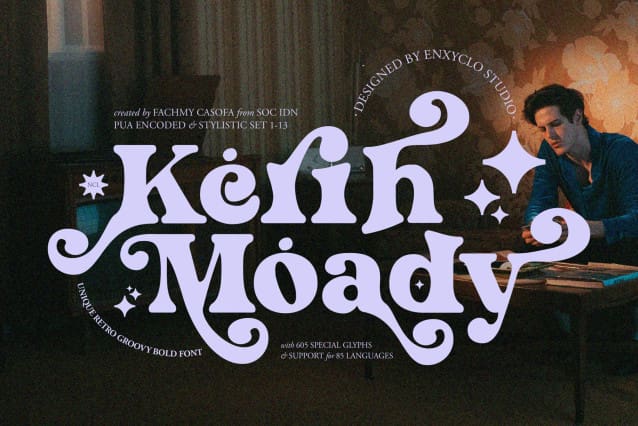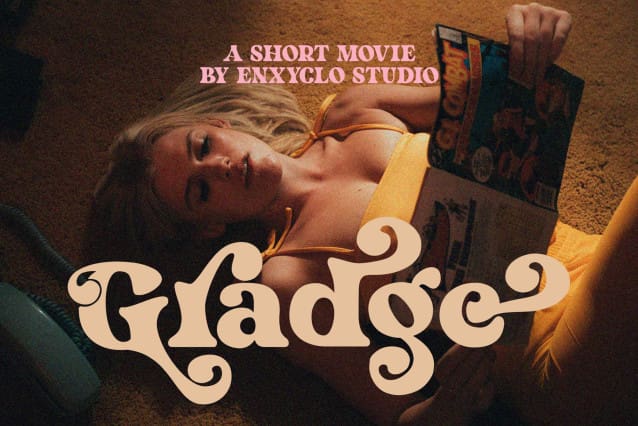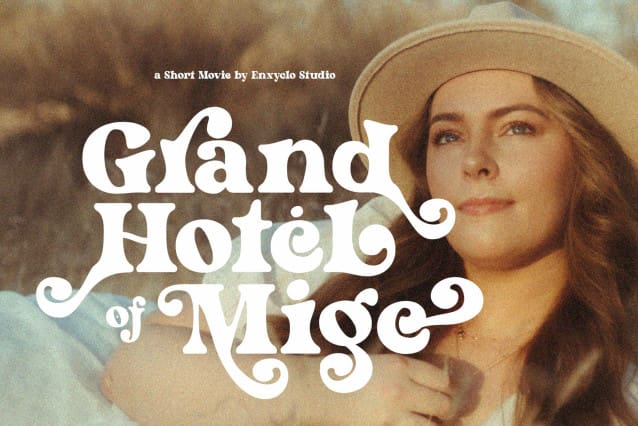
Kerih Moady Font
KERIH MOADY FONT is a retro groovy bold font. Masterfully designed to become a true favorite, this font has the potential to bring each of your creative ideas to the highest level! Kerih Moady was purposely crafted to be used in large point sizes, although it doesn’t lose its magic in small point sizes. Kerih Moady is perfect for wedding, headline, billboard, magazines, website, titles, poster, branding, and logos. No matter the topic, this font will be an incredible asset to your fonts’ library, as it has the potential to elevate any creation. With this beautiful font, absolutely you can make your project stand out from the rest.